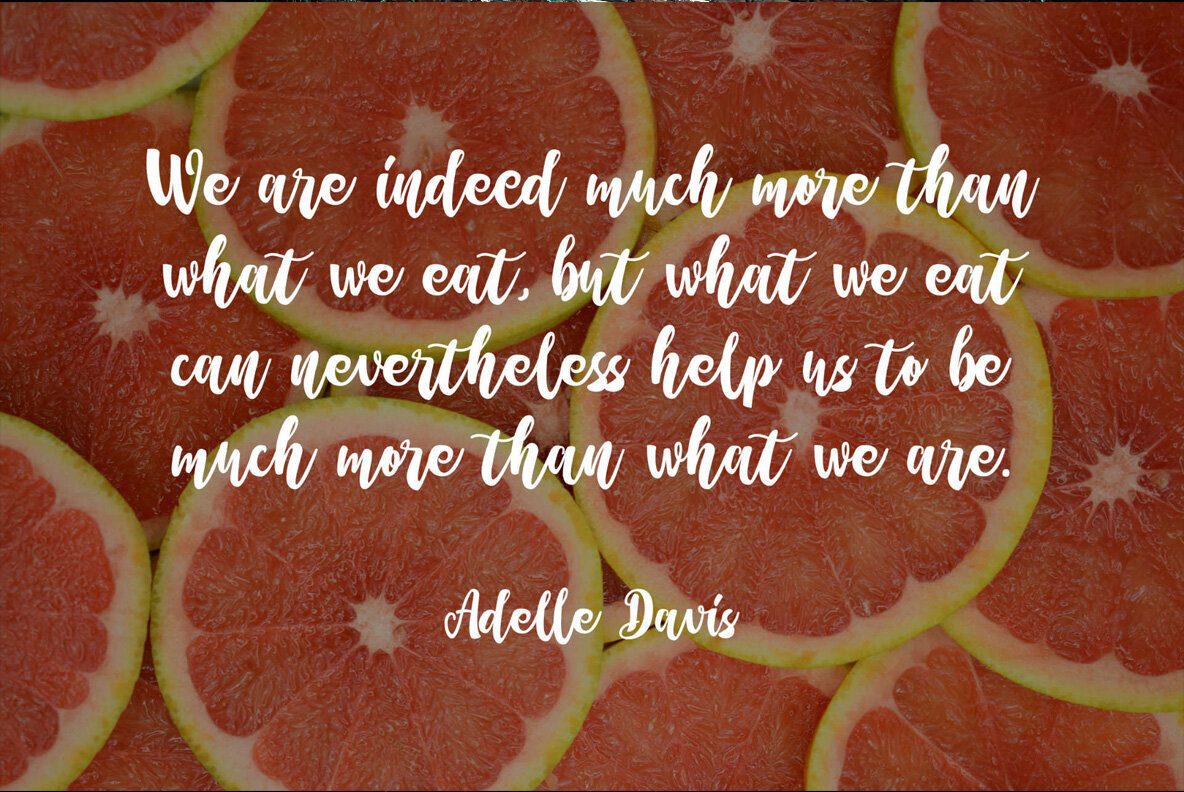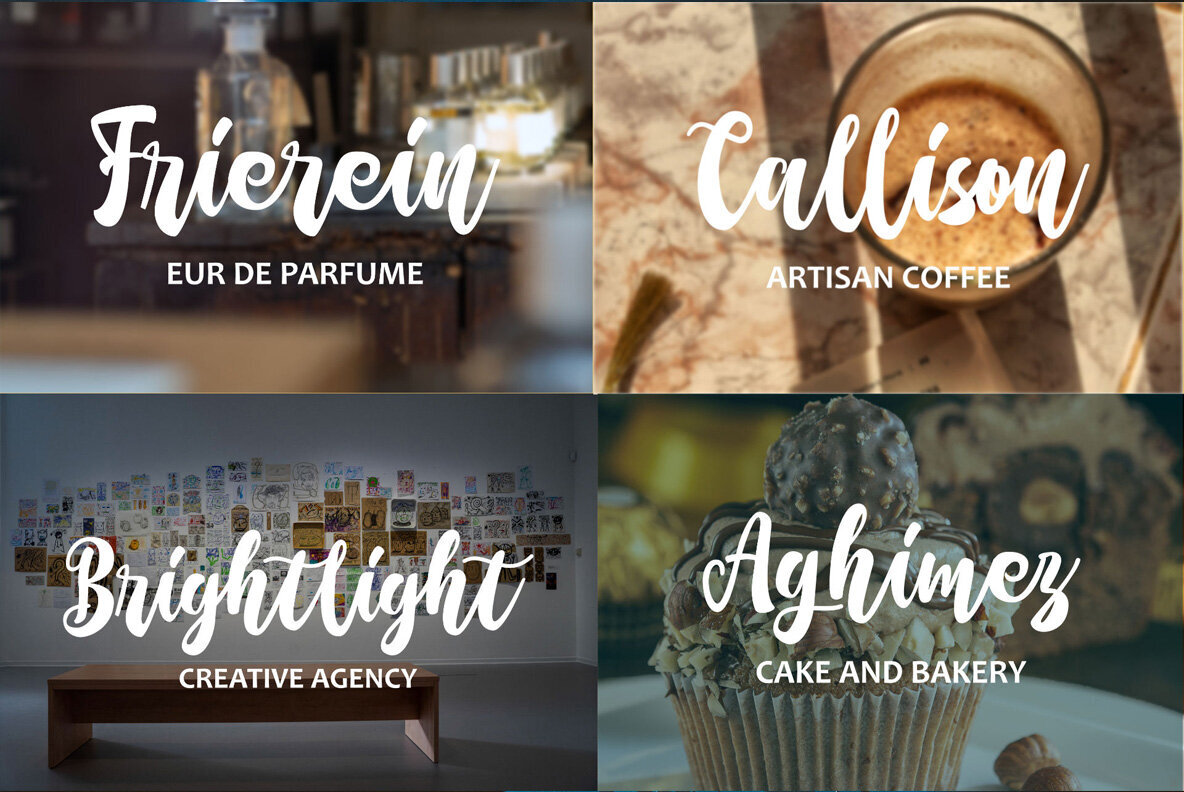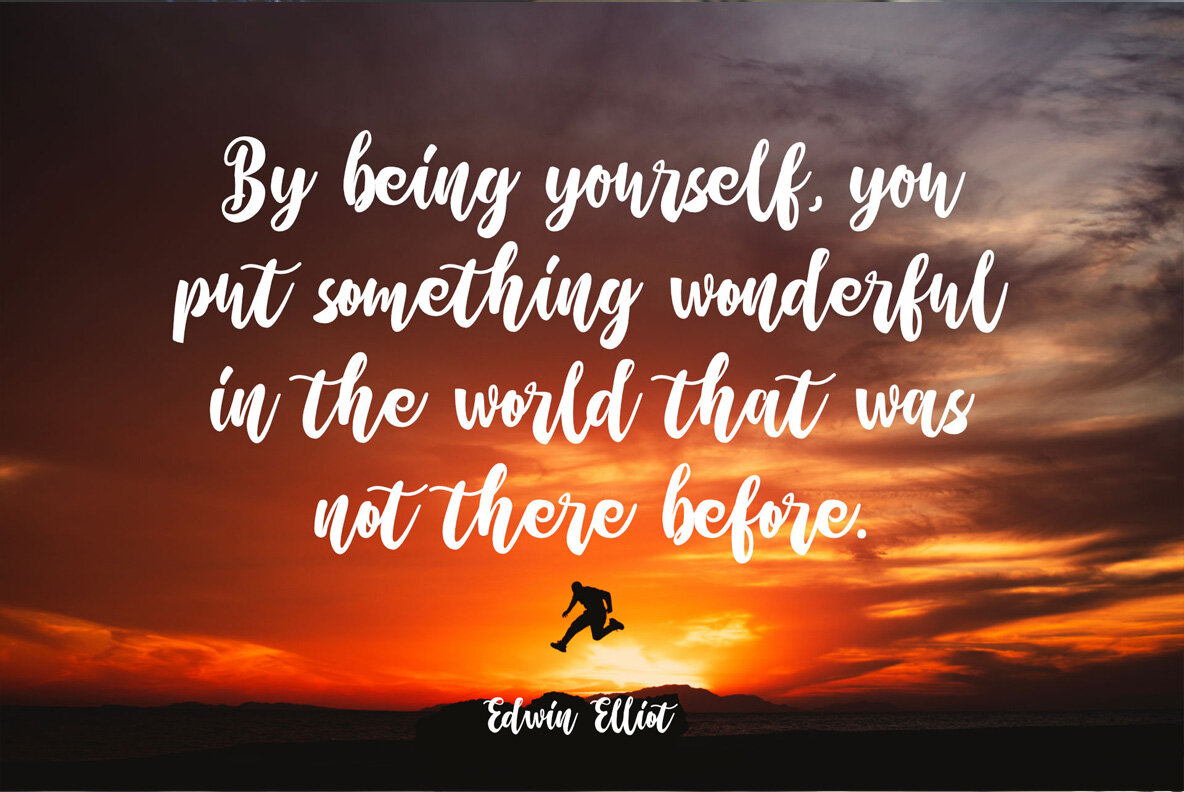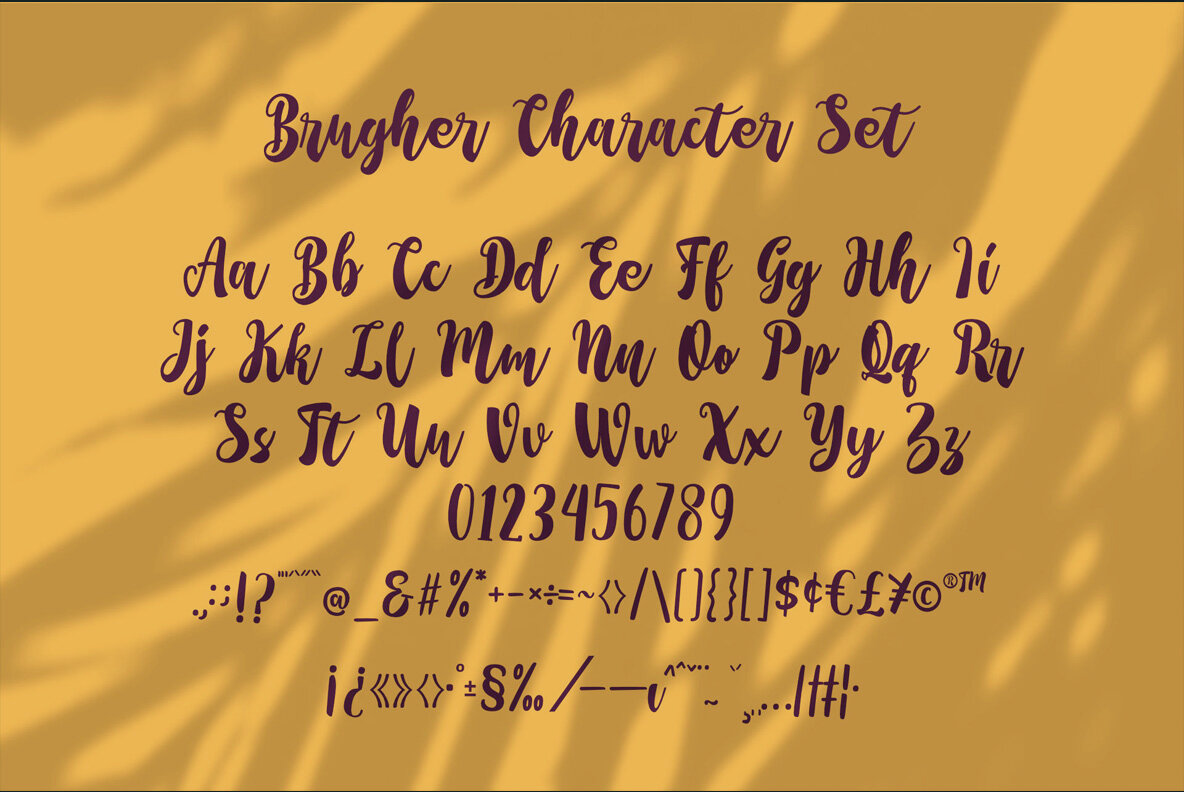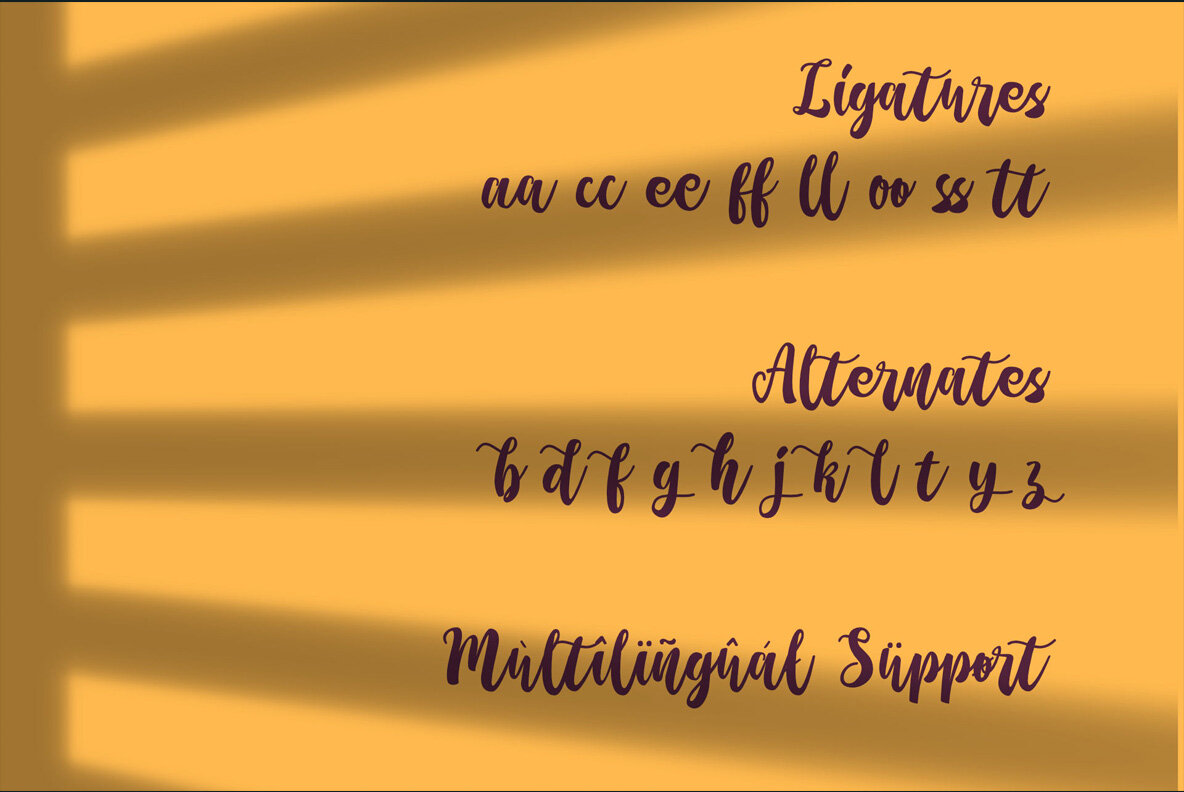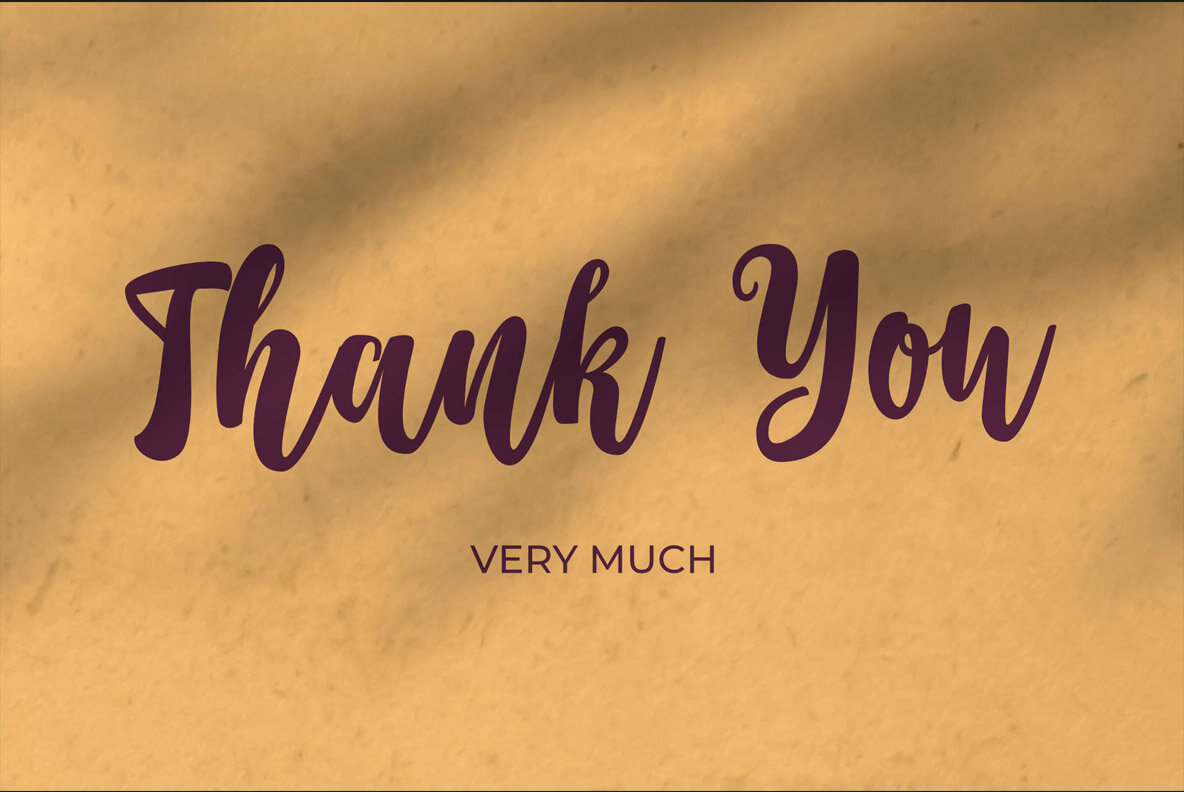
Brugher Font
Brugher Regular
Brugher is a remarkable handwritten script that brings an artistic touch to your projects. Perfect for logos, headers, titles, and prints, this font script allows for extraordinary typography results.Brugher: Stylish Handwritten Script Font